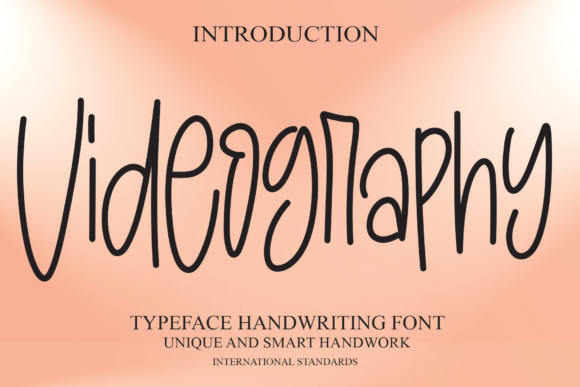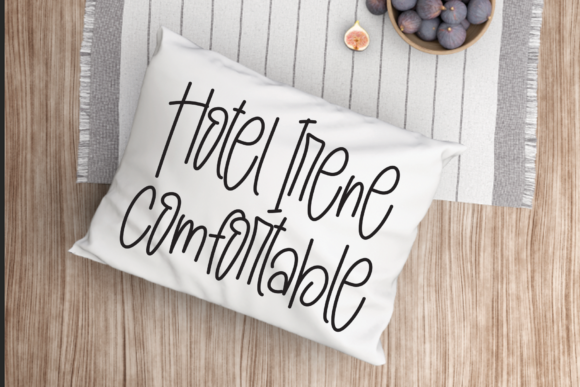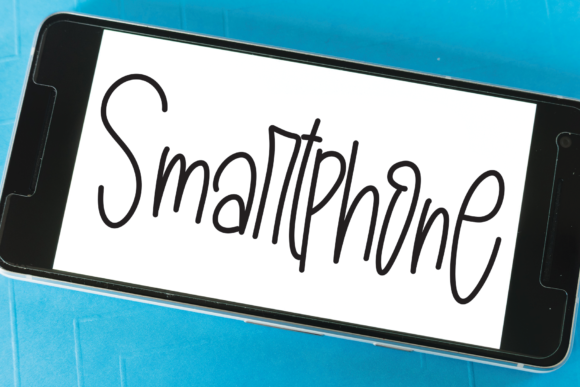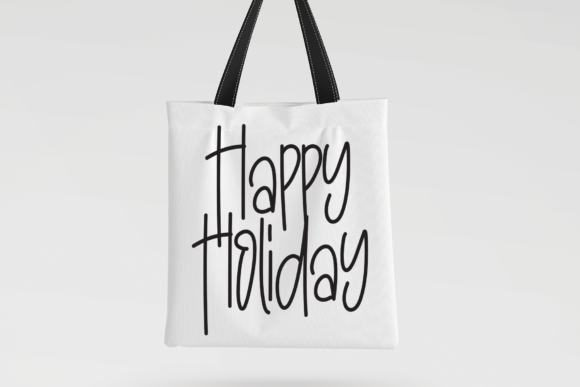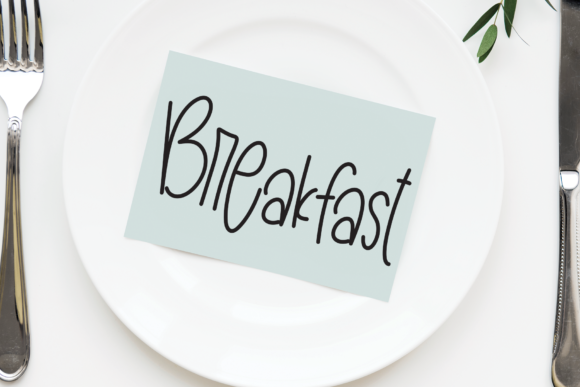
Videography Font
About Videography Font
Videography is a simple, quirky and adaptable handwritten font. Its informal style and casual vibe will make this font a go-to choice for each of the creations that require a relaxed touch.